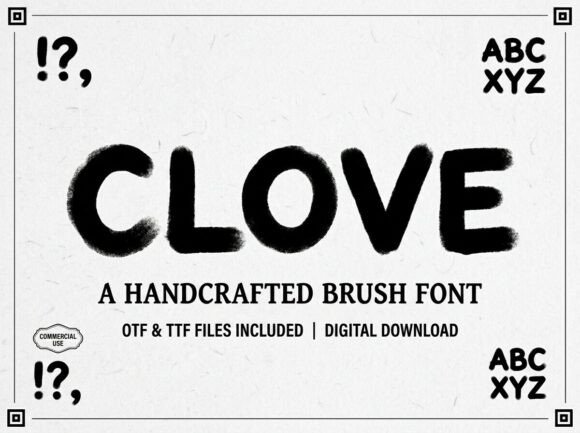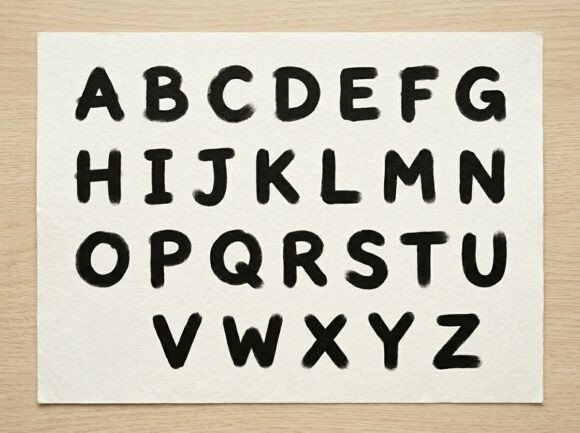
Introducing Clove Font: The Ultimate Decorative Display Font
Are you tired of using the same old fonts for your designs? Look no further than Clove Font, a stunning decorative display font that’s sure to turn heads. With its unique artistic elements and strong visual personality, this font is perfect for creators who want to break away from the ordinary and make a statement.
What is Clove Font?
Clove Font is a decorative display font designed to be the center of attention. Its unique and artistic elements make it perfect for bold headlines, artistic logos, and creative packaging. This font is versatile enough to be used in a variety of design projects, while maintaining a professional and polished finish.
Key Features of Clove Font
- Unique Artistic Elements: Clove Font features unique artistic elements that set it apart from other fonts. Each letter is carefully crafted to make a statement and add a touch of elegance to your designs.
- Strong Visual Personality: This font has a strong visual personality that’s sure to grab attention. Its bold and eye-catching design makes it perfect for headlines, logos, and other design elements that need to stand out.
- Versatile: Clove Font is versatile enough to be used in a variety of design projects, from bold headlines and artistic logos to creative packaging and more.
- Professional and Polished Finish: Despite its bold and artistic design, Clove Font maintains a professional and polished finish that’s perfect for designs that require a touch of sophistication.
IMPORTANT NOTE BEFORE PURCHASE: Clove Font is an ALL-CAPS (Uppercase Only) display typeface. It does not include lowercase letters. It is specifically designed for high-impact headlines, logos, and decorative initials where every letter is a work of art.
Who is Clove Font for?
Clove Font is perfect for:
- Graphic Designers: If you’re a graphic designer looking for a unique and eye-catching font to add to your collection, Clove Font is a great choice.
- Log designers: If you design logos for a living, Clove Font is a great option. Its bold and artistic design makes it perfect for creating memorable and impactful logos.
- Crafters: If you’re a crafter who loves to create handmade products, Clove Font is a great choice for adding a touch of elegance and sophistication to your designs.
- Marketing and Advertising Professionals: If you work in marketing or advertising, Clove Font is a great option for creating eye-catching headlines and promotional materials.
Tips for Using Clove Font
- Use it sparingly: Because Clove Font is a bold and eye-catching font, it’s best to use it sparingly. Use it for headlines and other design elements that need to stand out.
- Pair it with a simple font: To create visual interest, pair Clove Font with a simple font. This will help to create contrast and make your design more visually appealing.
- Experiment with different colors: Clove Font looks great in a variety of colors. Experiment with different colors to find the one that works best for your design.
Clove Font is a stunning decorative display font that’s perfect for creators who want to break away from the ordinary. With its unique artistic elements and strong visual personality, this font is sure to turn heads. Whether you’re a graphic designer, log designer, crafter, or marketing professional, Clove Font is a great choice for adding a touch of elegance and sophistication to your designs.